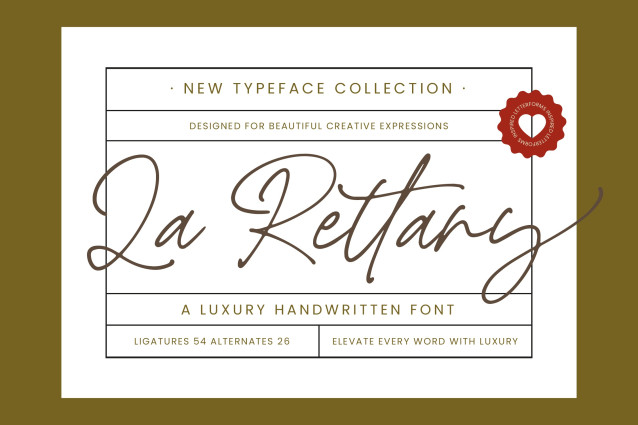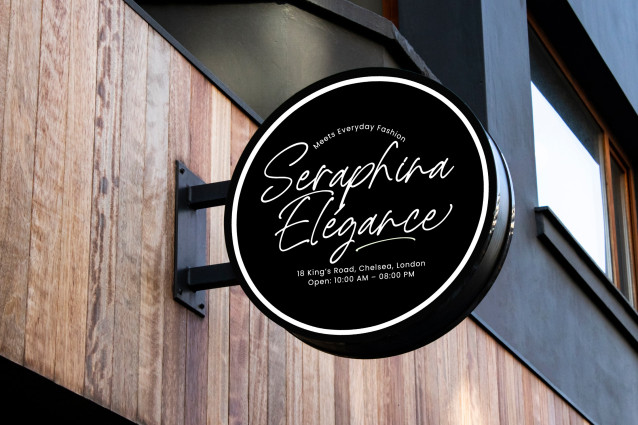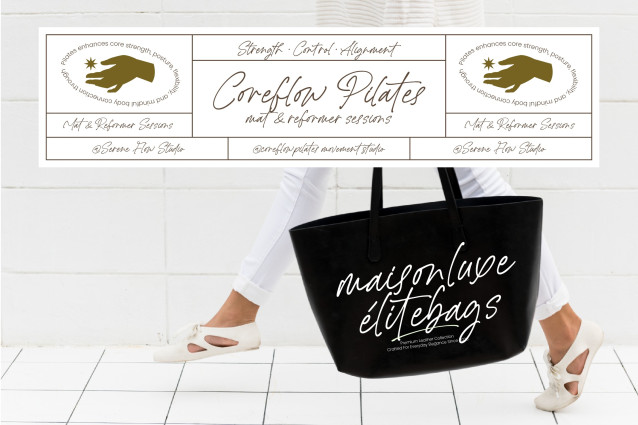
La Rettany – Luxury Handwritten Font
La Rettany – Luxury Handwritten Font is a masterfully crafted typeface designed to provide a bespoke quality to every design. With its fluid strokes and monolinear elegance, it captures the essence of a high-fashion signature, making it an essential tool for designers seeking to convey exclusivity and premium craftsmanship in their digital and print media.
Precision-engineered for high-impact results, this typeface serves as the ultimate luxury branding solution. La Rettany – Luxury Handwritten Font is perfect for premium packaging, editorial design, and upscale wedding stationery. Whether you are developing a boutique logo or creating sophisticated social media graphics, this font provides the artistic flair needed to stand out in a crowded market while maintaining a professional and timeless appeal.
Empower your global outreach with a versatile typeface that speaks a universal language of elegance. Featuring a robust collection of 54 ligatures and 26 alternates, this font offers endless creative possibilities for dynamic typography. With its extensive multilingual support, La Rettany – Luxury Handwritten Font adapts seamlessly across global markets, making it incredibly versatile for international projects and ensuring your message resonates with clarity and style.